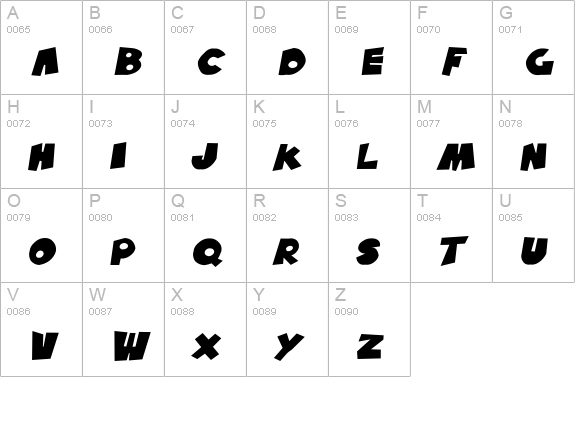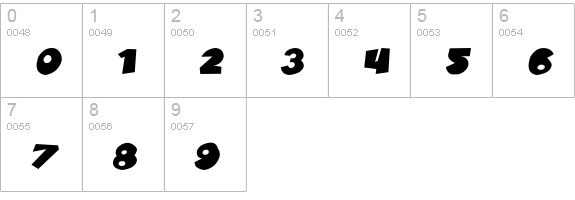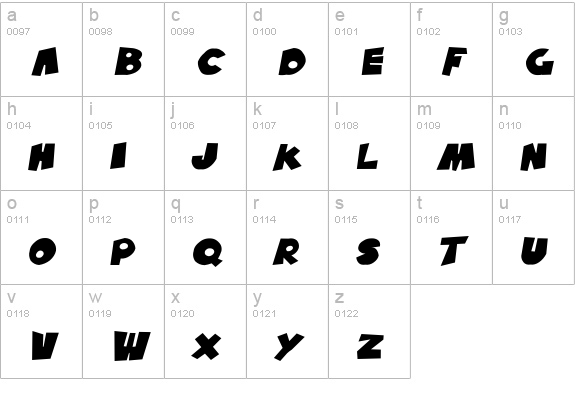
SF Pale Bottom Extended Oblique Font Details
SF Pale Bottom Extended Oblique is a distinctive, extended-width, italic variant in the SF typeface family \xE2\x80\x94 well suited to design and typography projects.
SF Pale Bottom Extended Oblique font is a beautifully crafted typeface that exudes elegance and sophistication. Its extended letterforms give it a unique and modern look, making it perfect for various design projects. The oblique slant adds a touch of dynamic energy to the font, making it stand out and catch the eye. The pale bottom design element adds a subtle yet distinctive touch, creating a sense of depth and dimension. This font is versatile and can be used for a wide range of applications, such as logos, branding, headlines, posters, and more. Its clean and crisp lines ensure readability even at smaller sizes, making it suitable for both print and digital media. What sets SF Pale Bottom Extended Oblique font apart is that it is freely available to download at FontsMarket.com. This means that designers and creatives can access this exceptional font without any cost, allowing them to enhance their projects with a high-quality typeface without breaking the bank. So whether you are a professional designer looking for a versatile font or a hobbyist wanting to add a touch of style to your creative endeavors, SF Pale Bottom Extended Oblique font is the perfect choice. Download it for free at FontsMarket.com and elevate your designs to new heights.